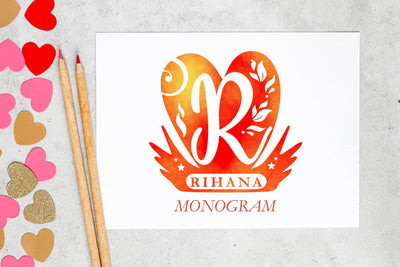
Rihana monogram
Rihana monogram is a handwritten font that is packaged in a circle of hearts. This font has 2 kinds,of heart mixed with stars and also a foliage feature to give lots of options to use. . .. This font is perfectly designed for your craft project, also perfect for your branding, and logo designs.